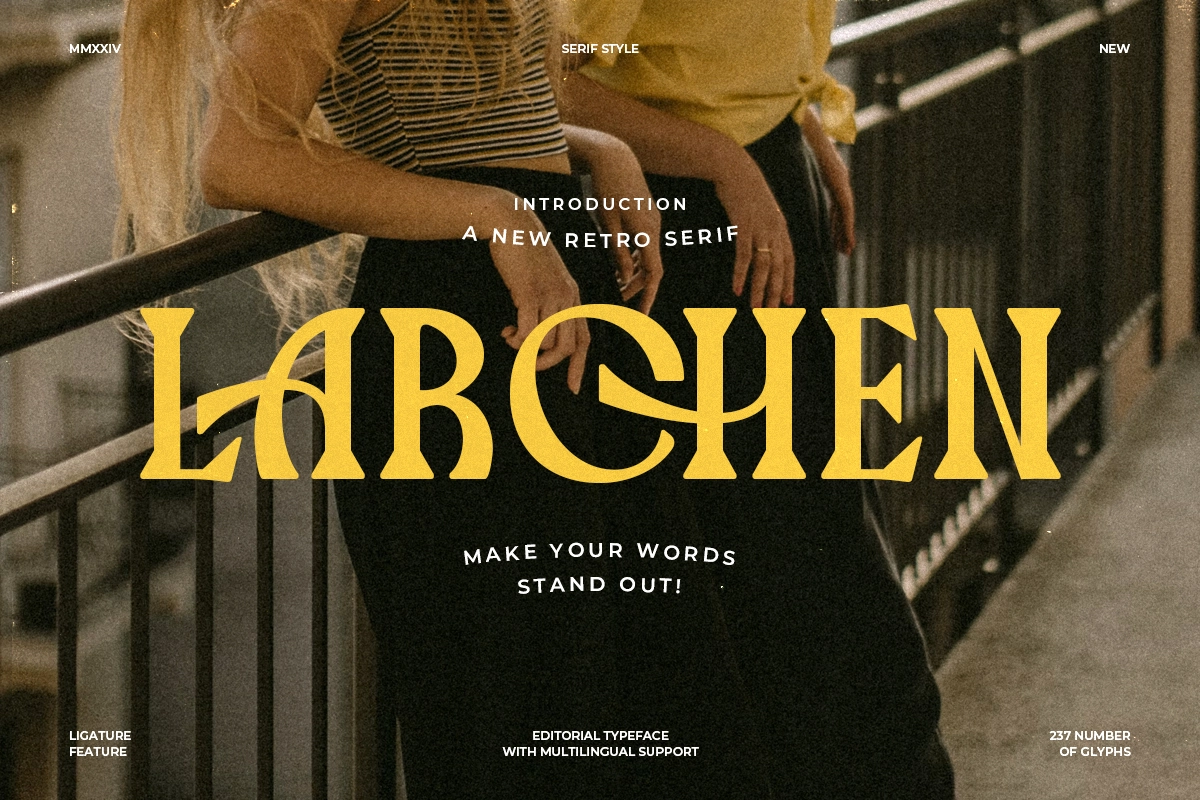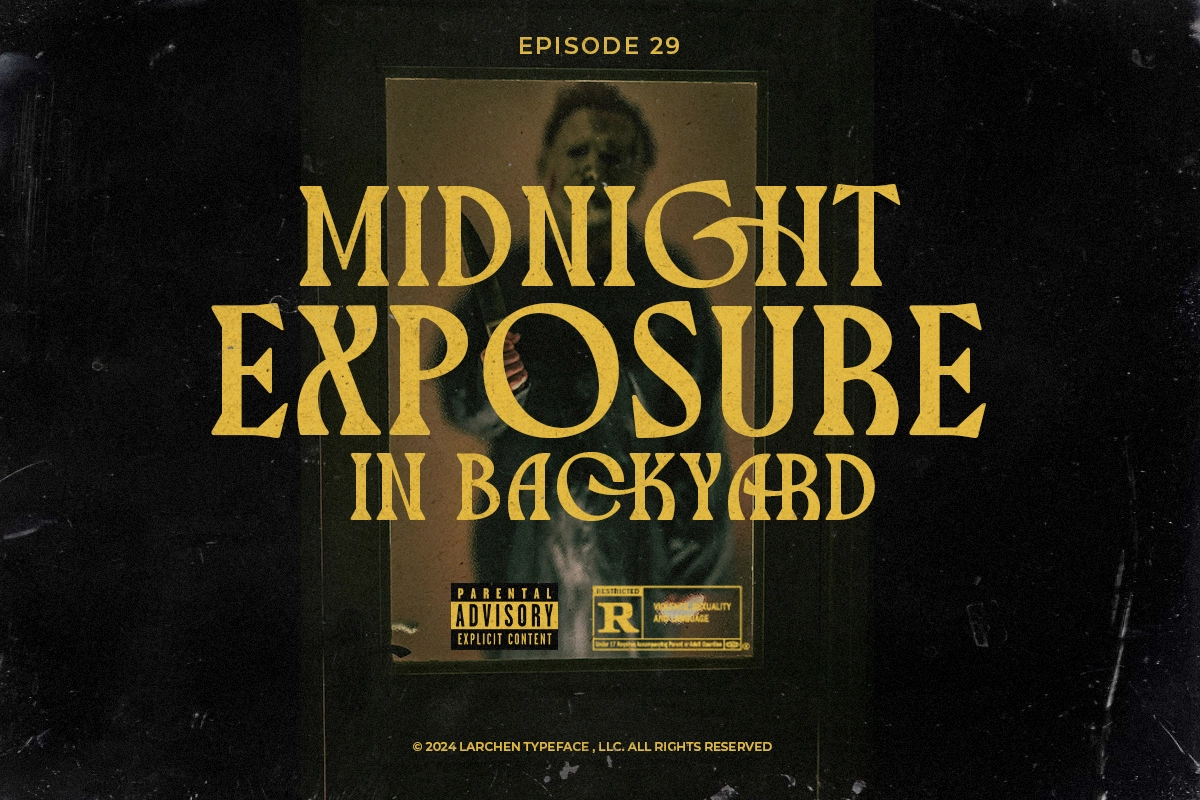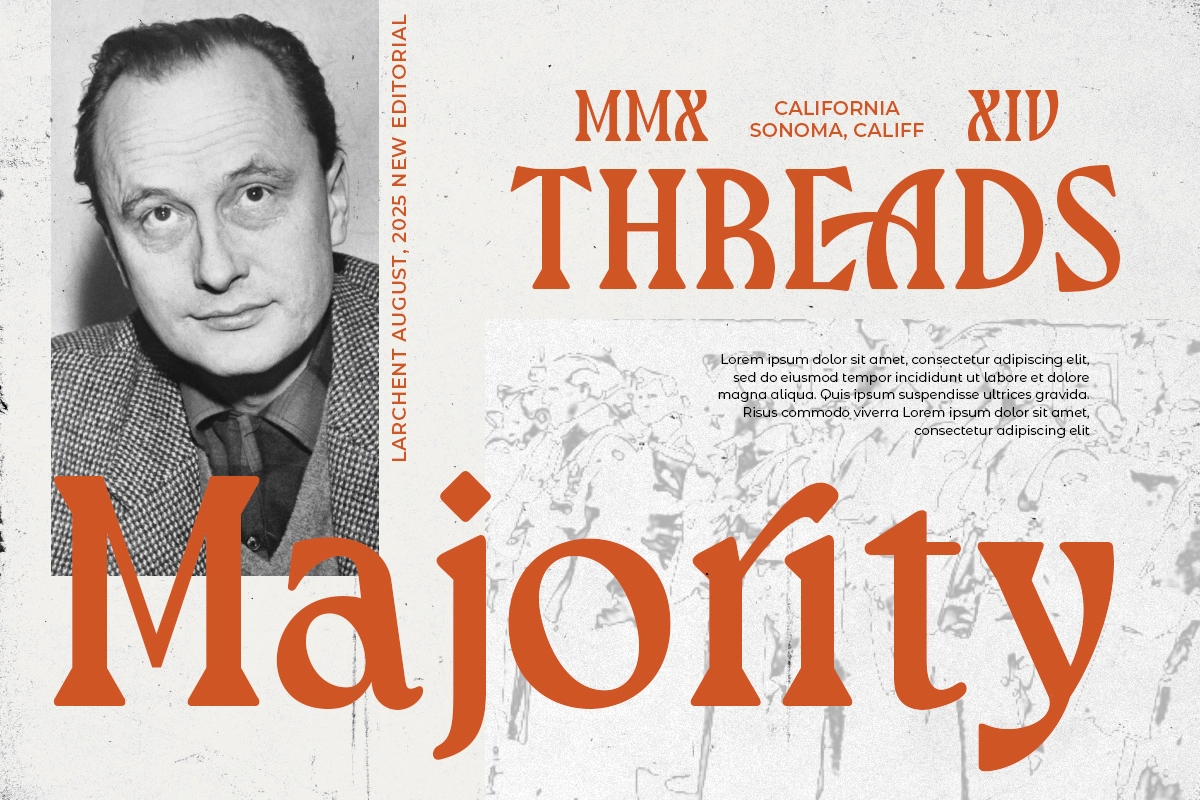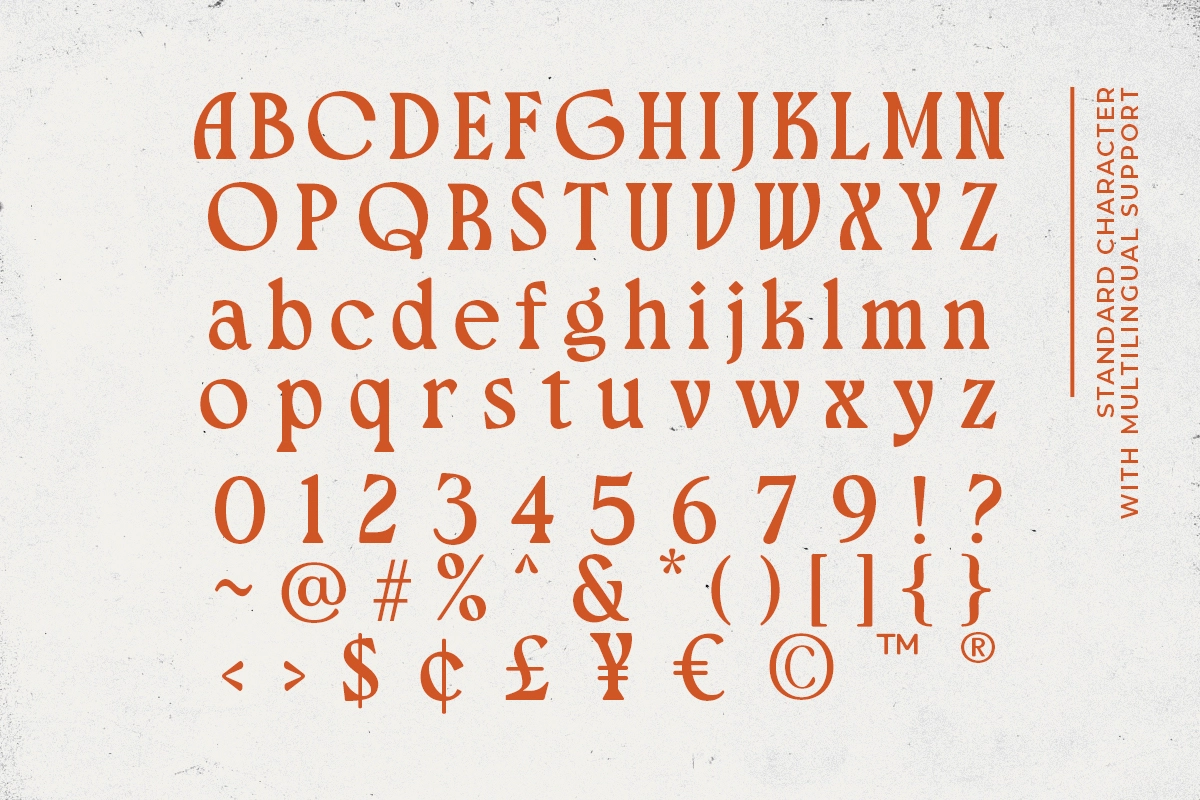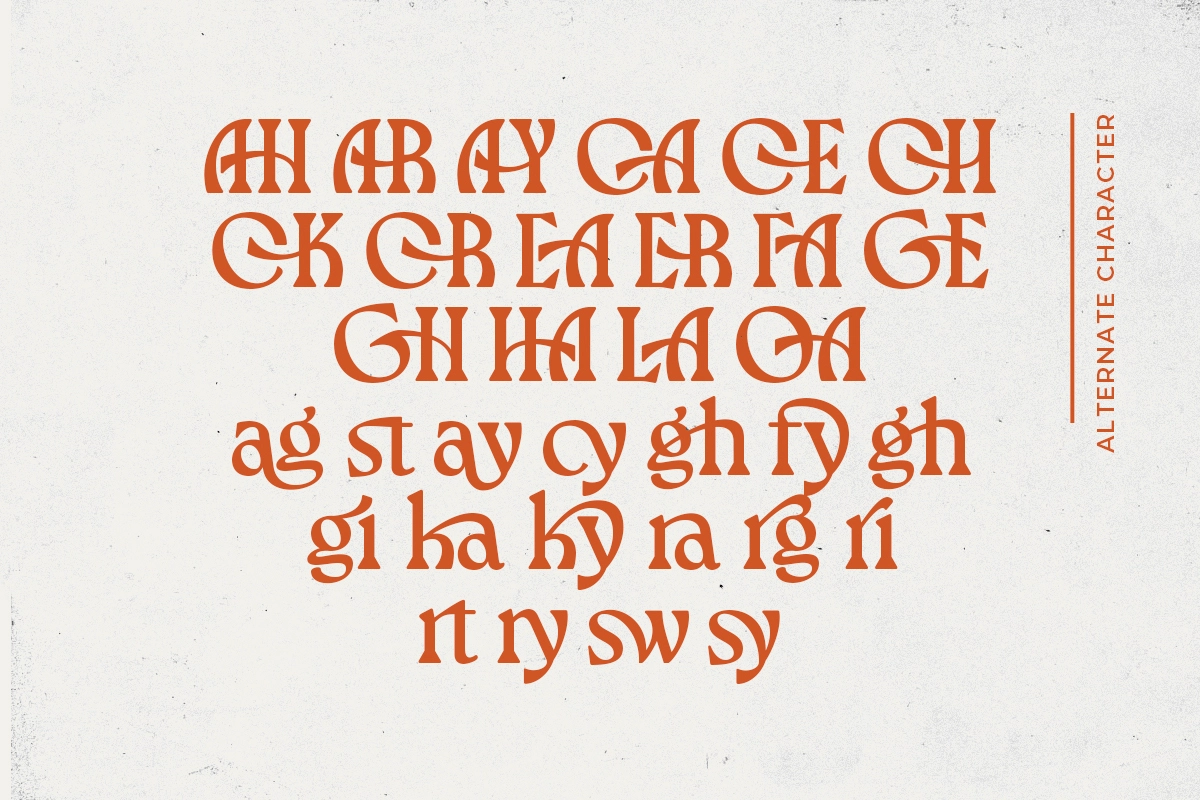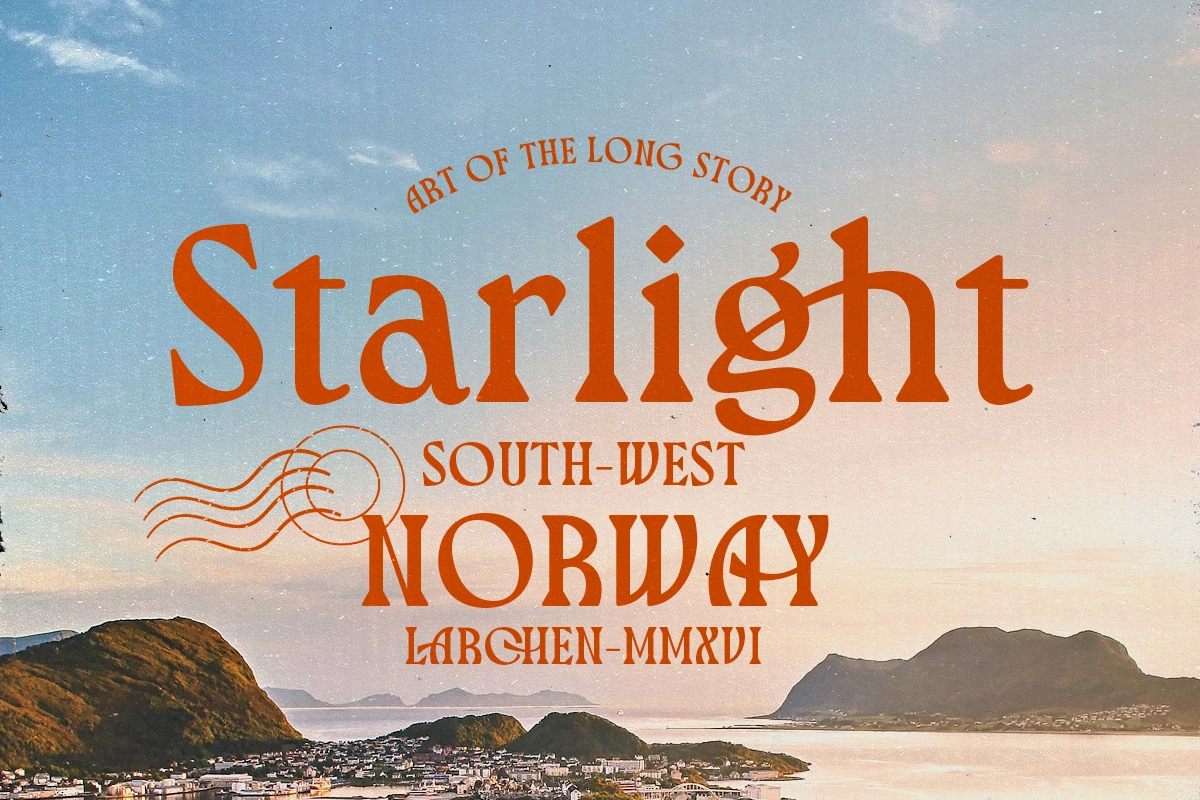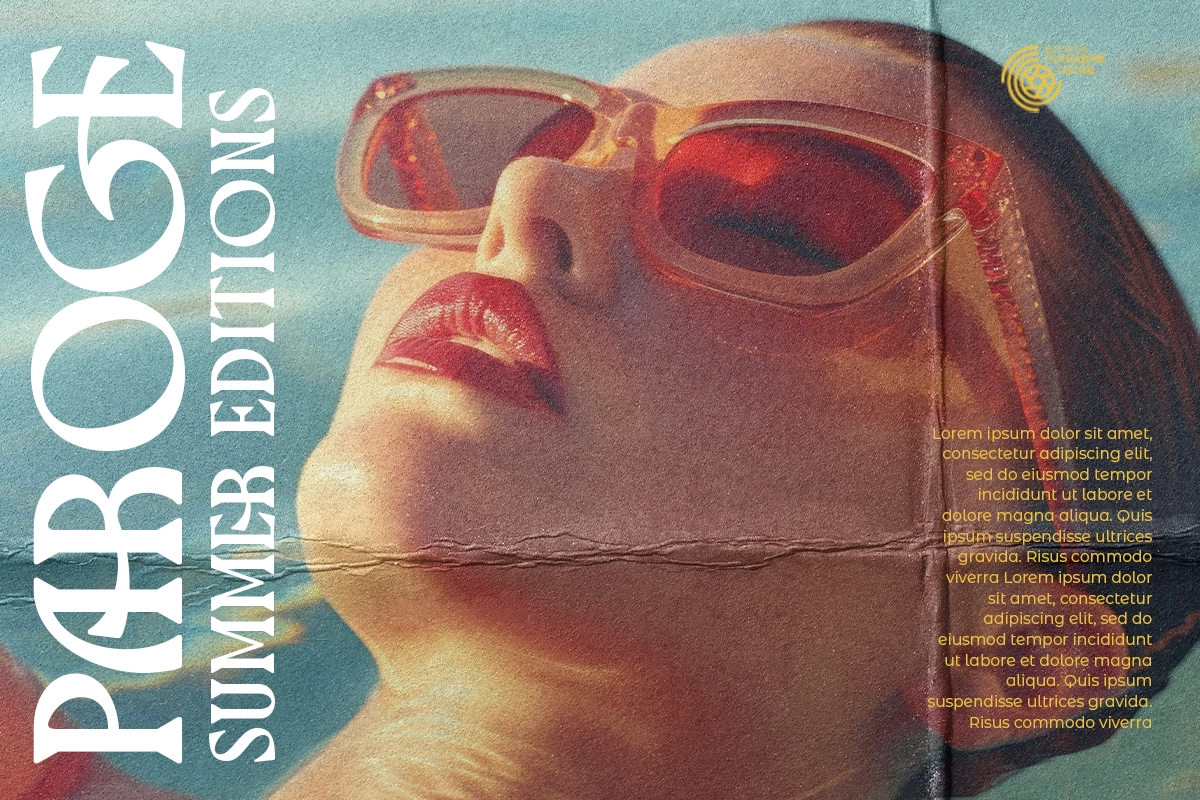
Larchen - Ligature Bold Serif
Larchen
Larchen is a ligature serif with bold and strong style. Comes with unique looks, this font will make your project more stand out and stunning. With stylish ligatures that you can use to step up your designs level. You can use this font for branding, poster, logotype, and more. Larchen also support multi language.